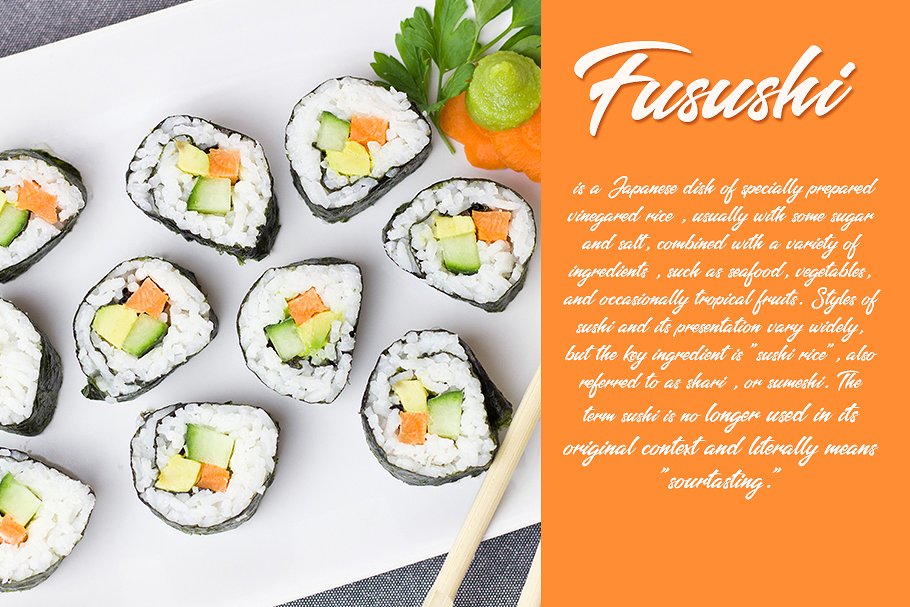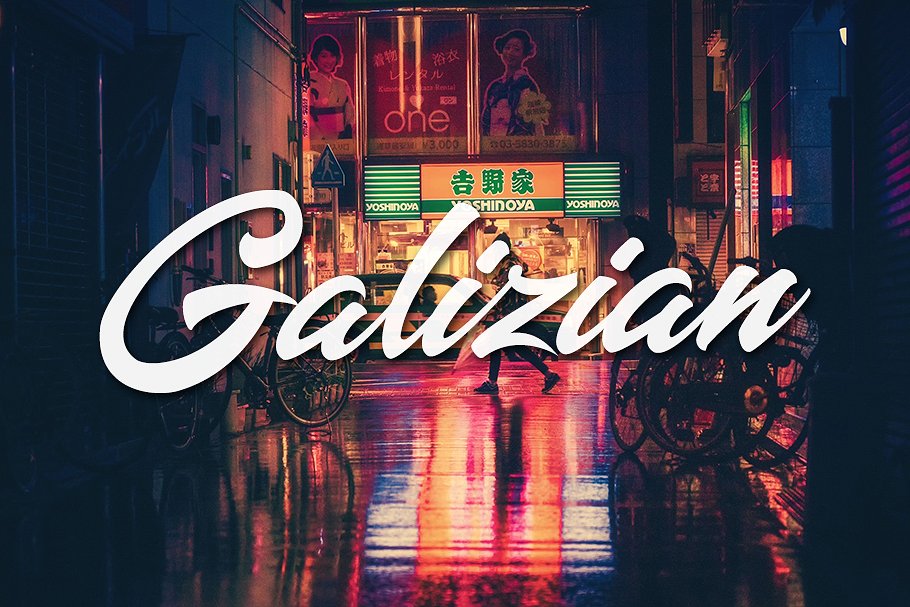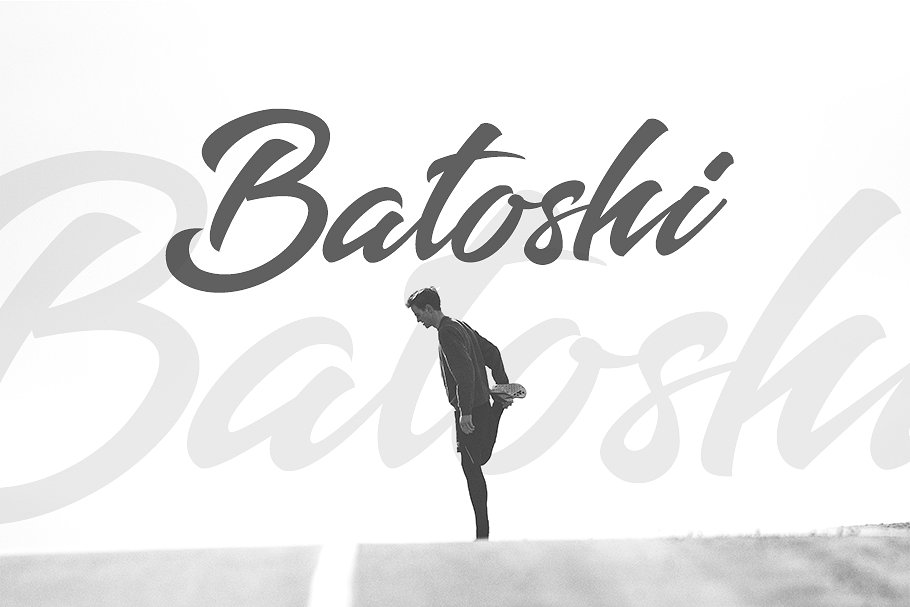
Batoshi Brush Font
A simple artistic multipurpose big brush font – a new modern & fresh script with a calligraphy style make this font looks elegant, natural, stylish. I hope we will also design the best art work using this kit. Introducing Batoshi Font. Batoshi modern hand-lettered designs. It suitable for logo, branding, t-shirt, poster, packaging, book cover,menu and any brush lettering needs and more.